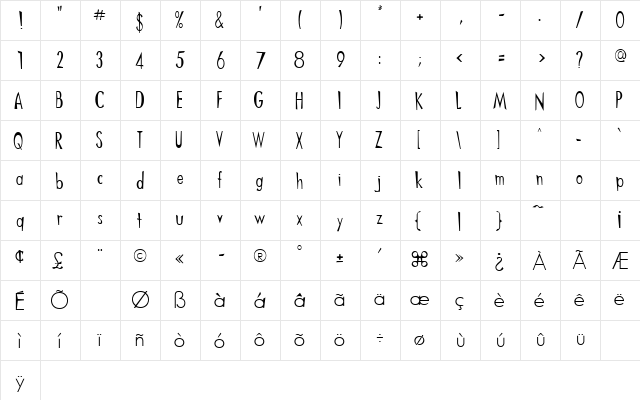
Ditnees Regular Font Preview
Ditnees Regular
Design Context for Ditnees Typeface
Ditnees offers clean, dependable letterforms without strong stylistic allegiance, making it a practical choice for designers who need flexibility.
Pro Tip: Use Ditnees in both headline and body roles to test its range before committing to a single application.